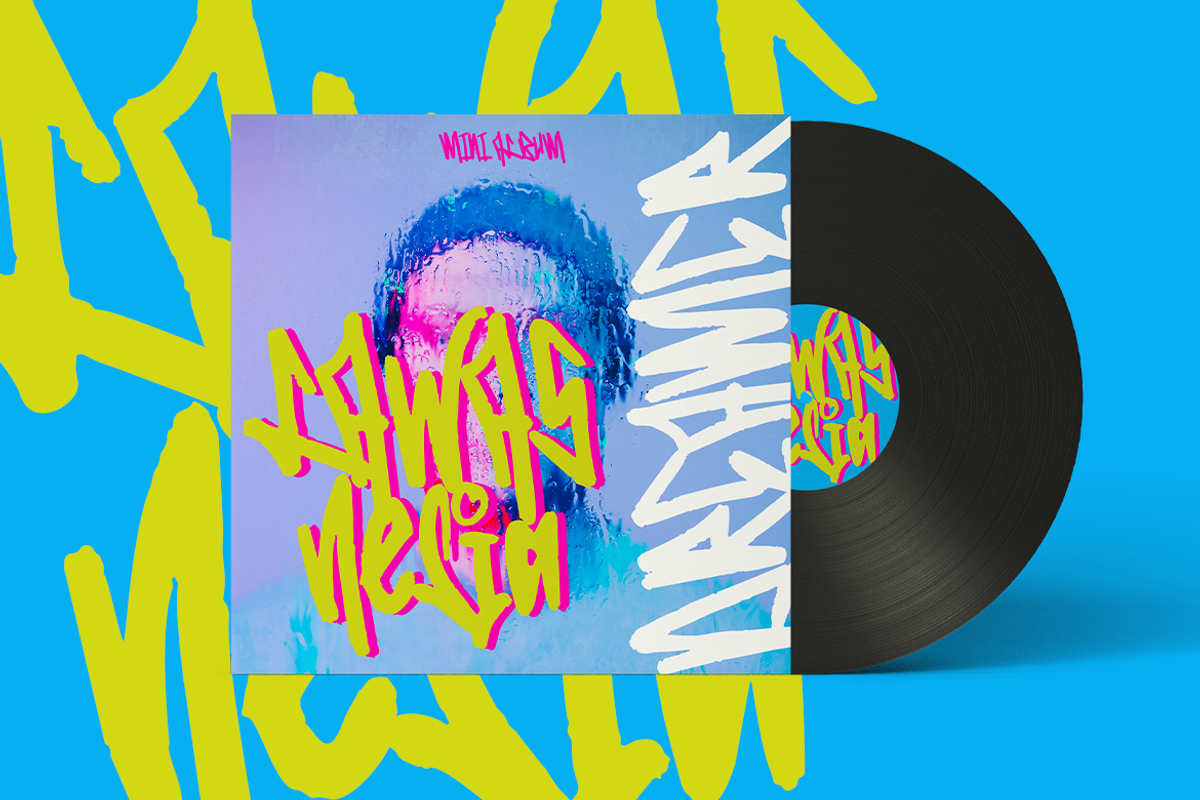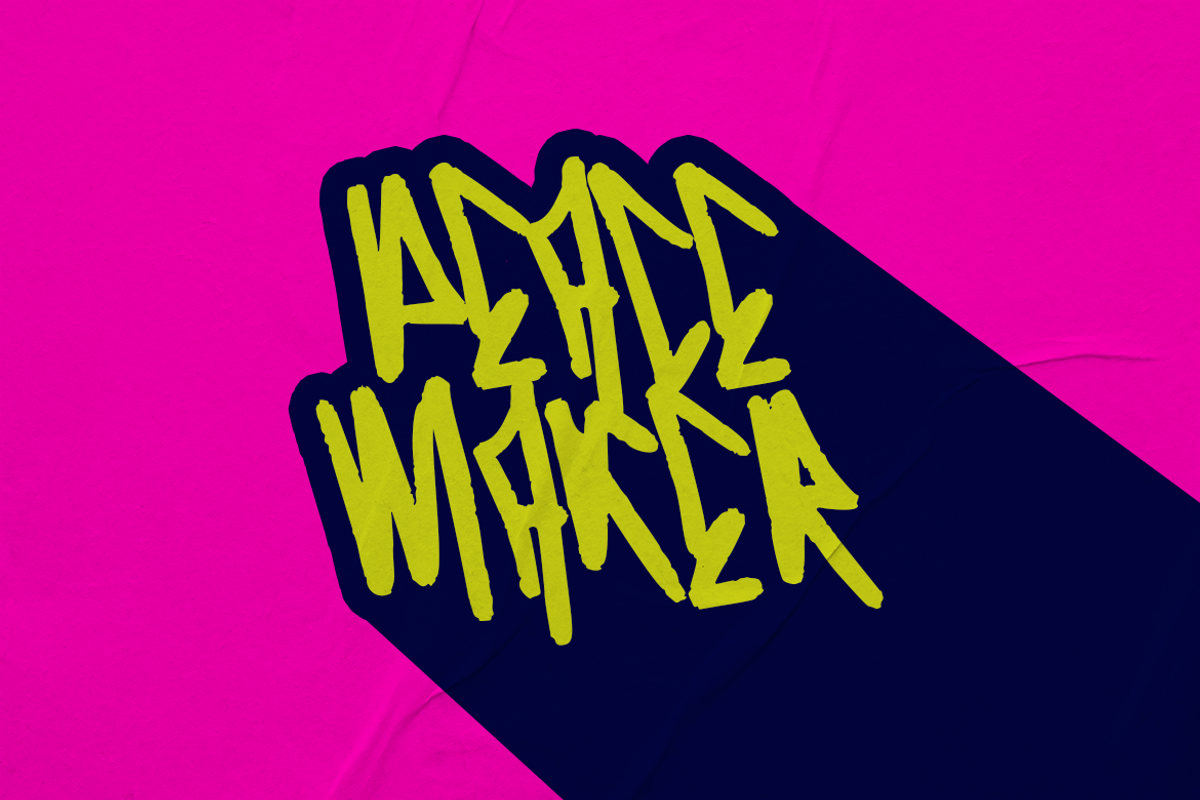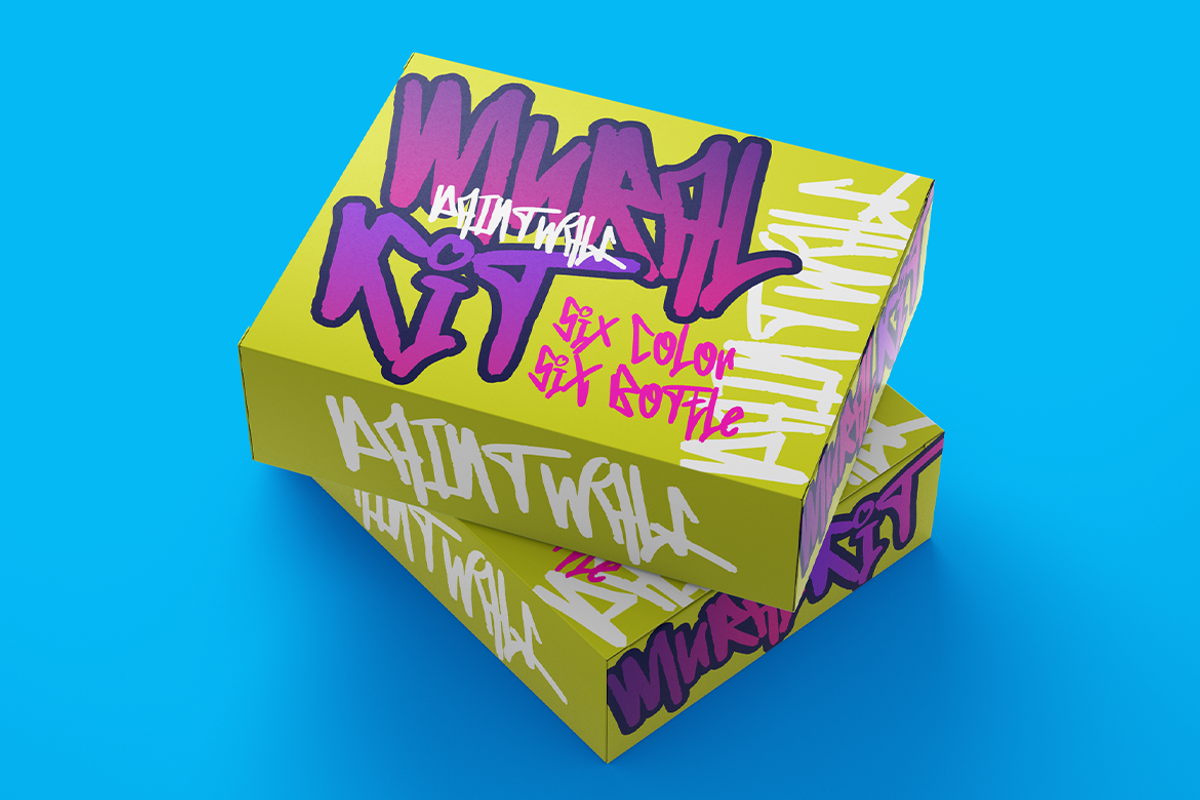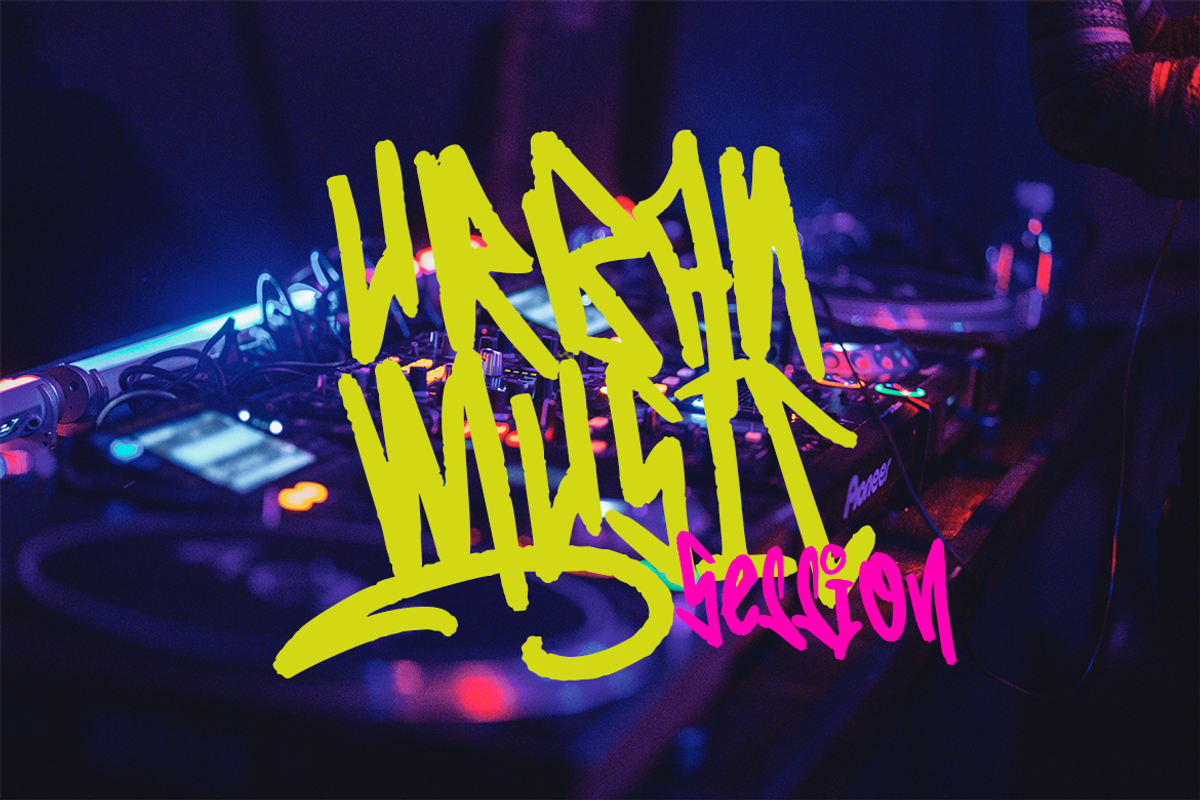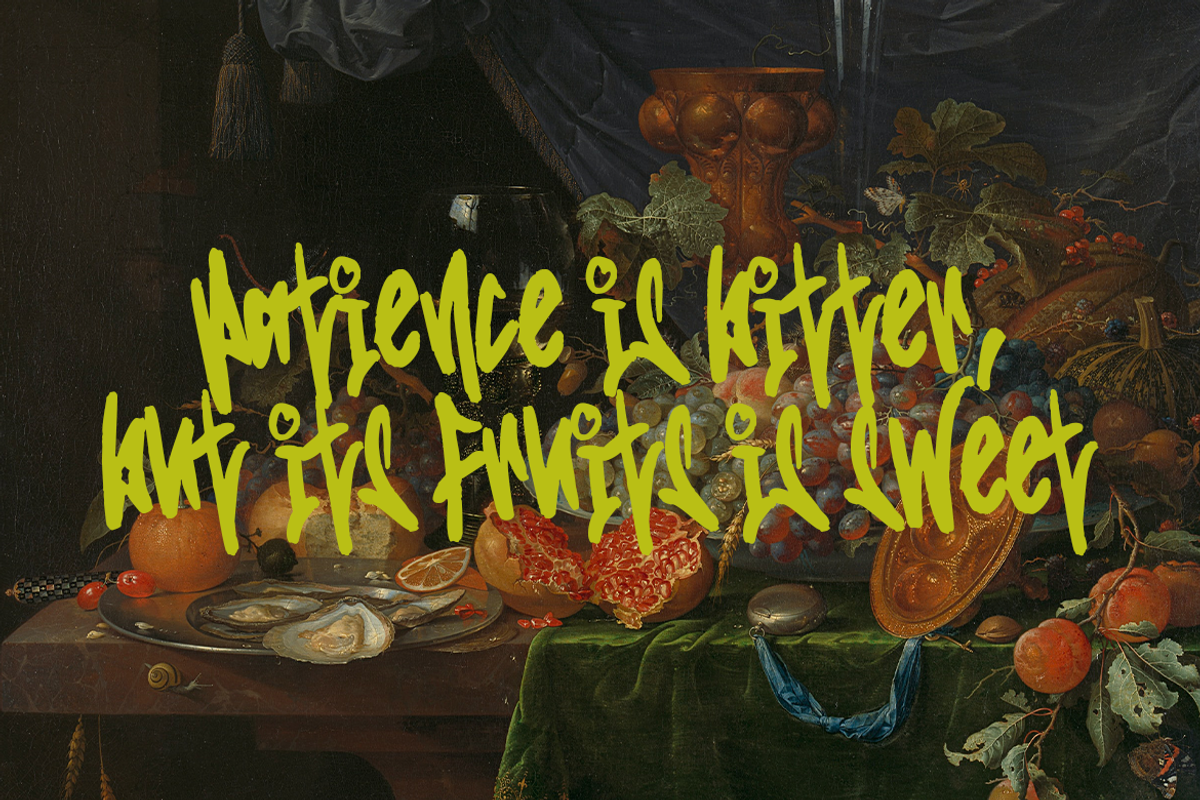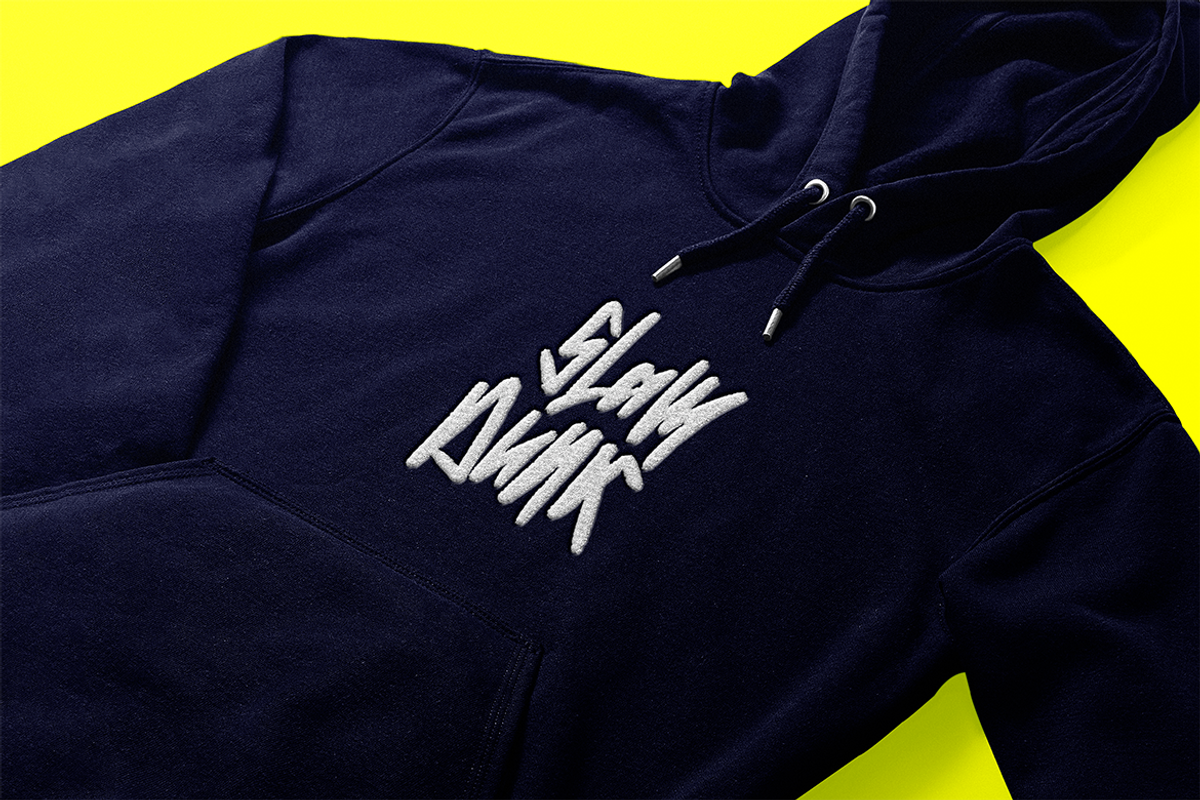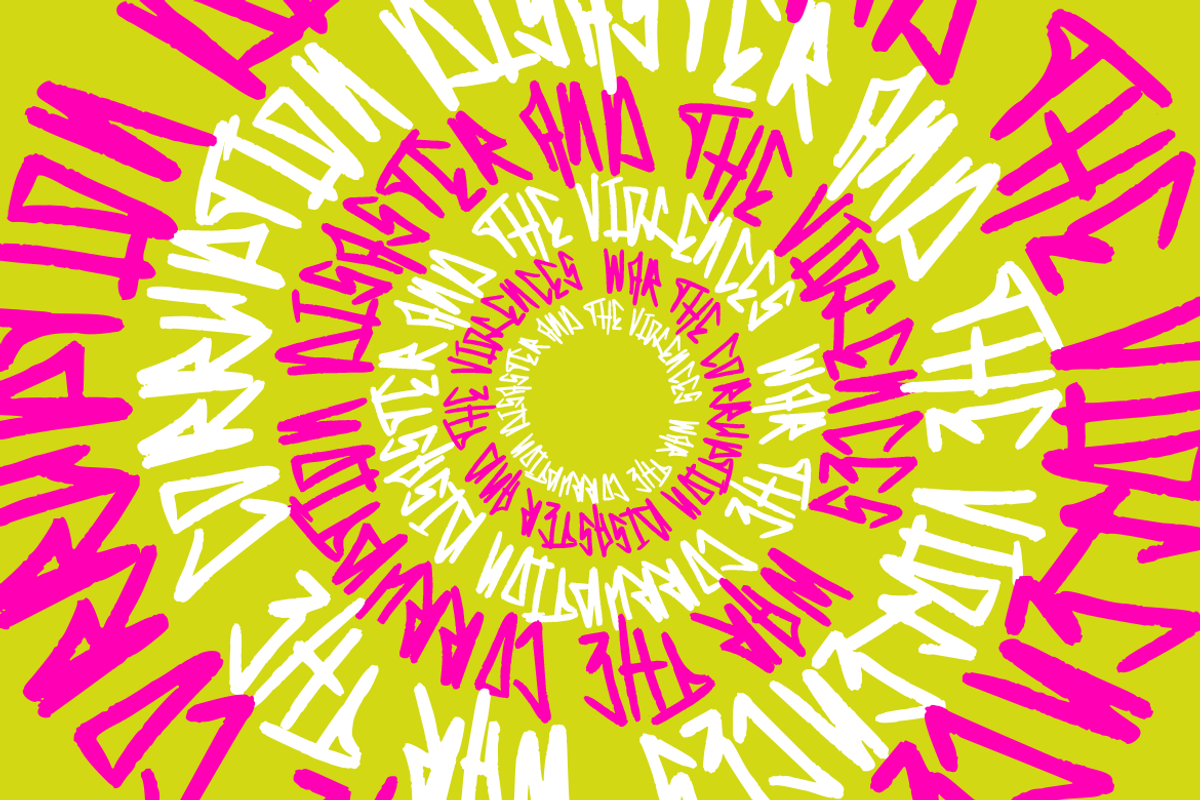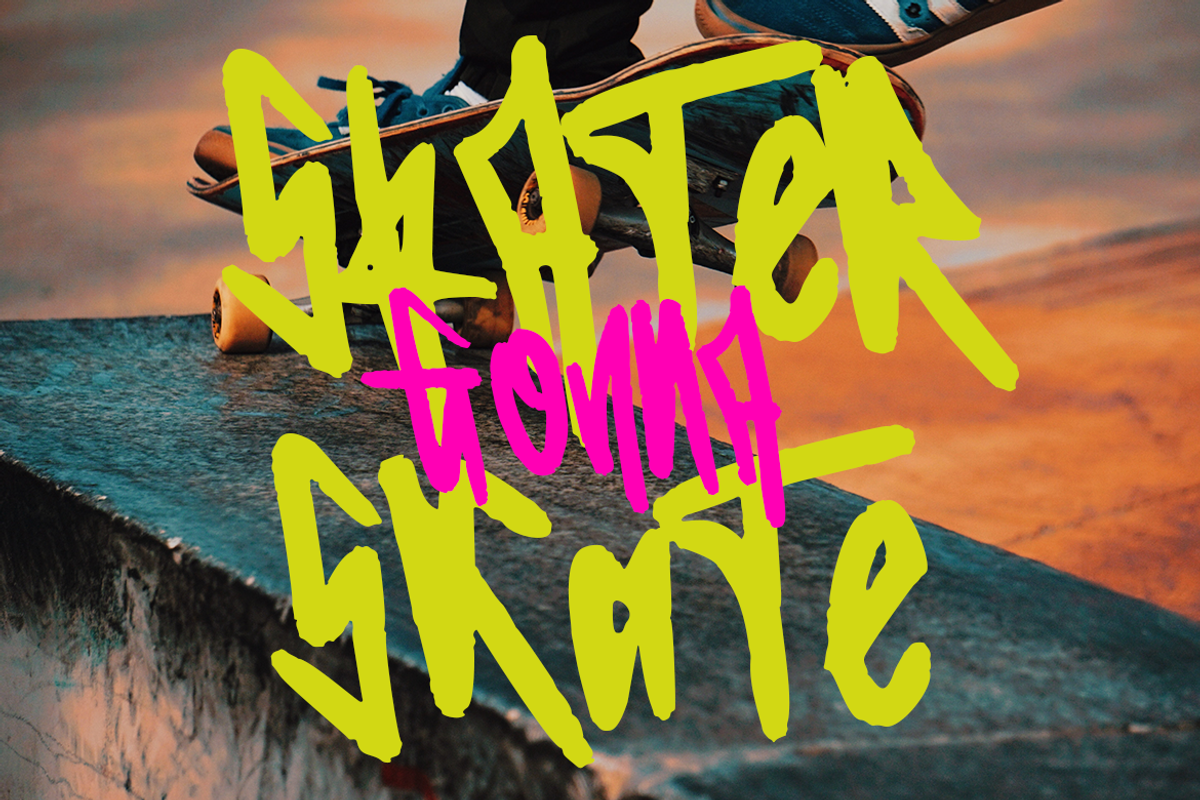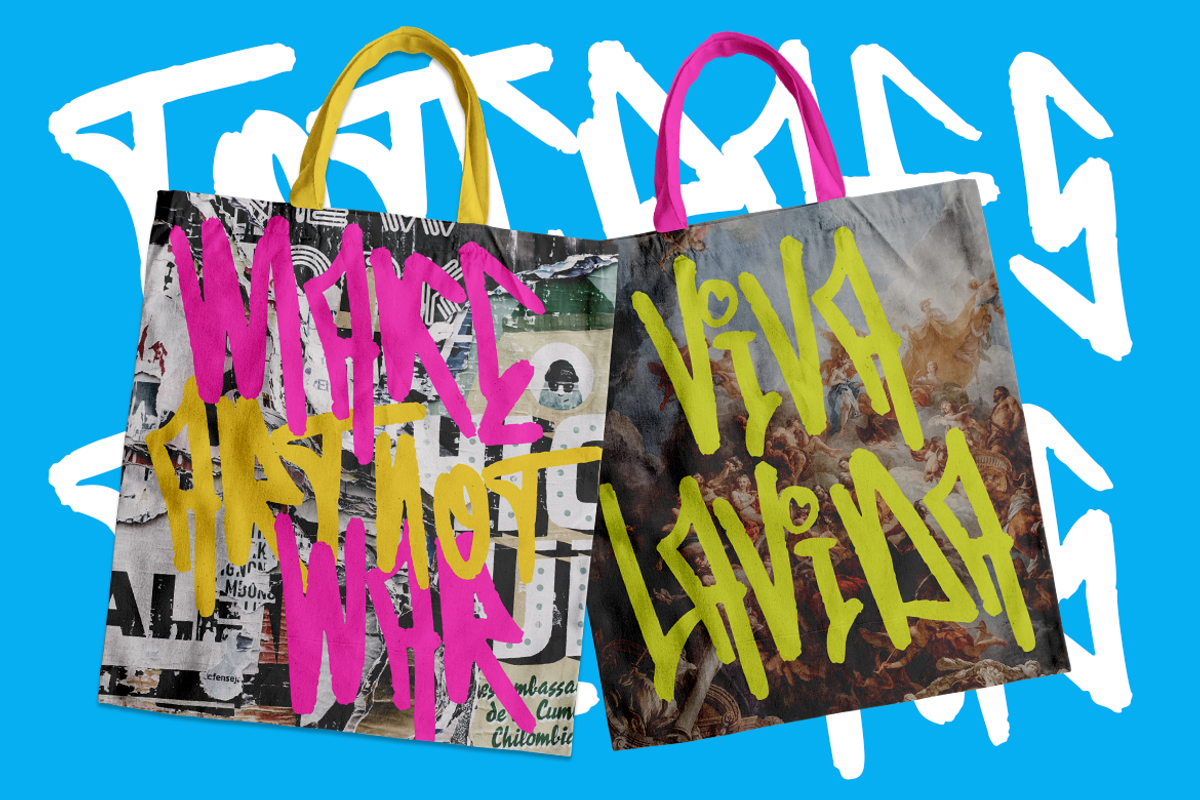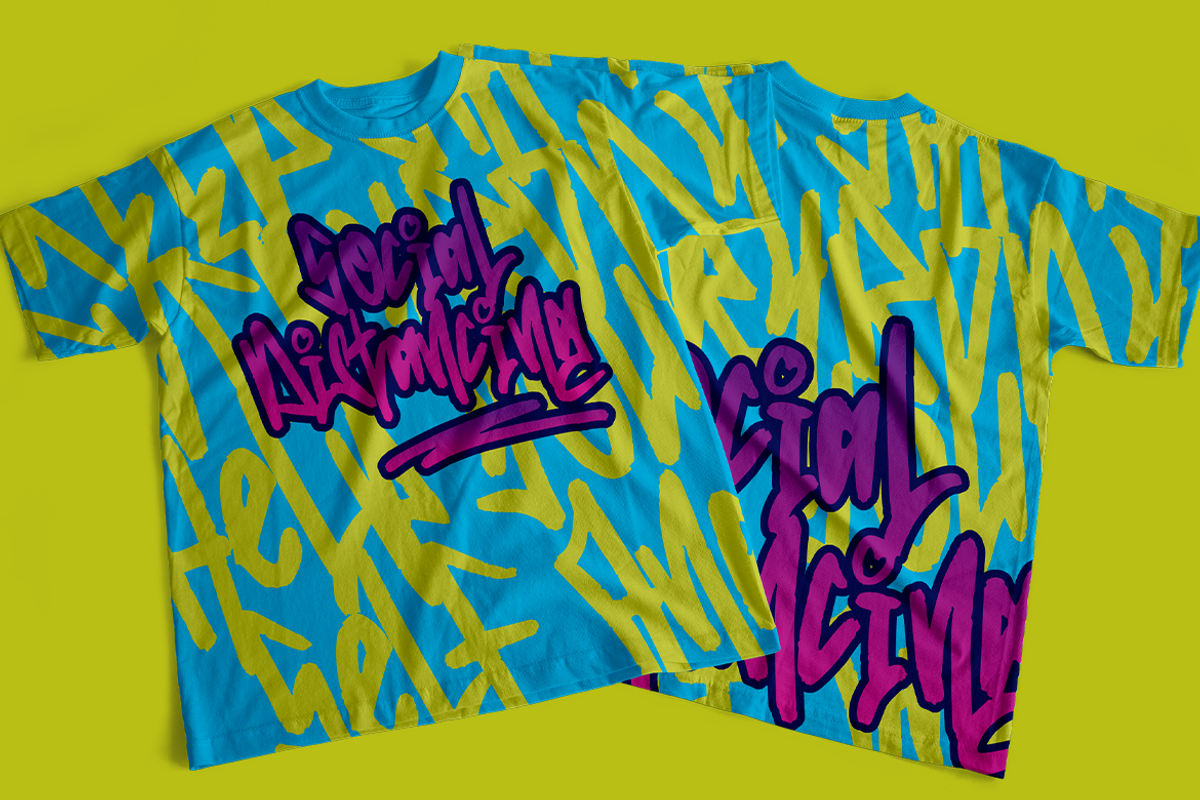
Edcosmic | An Urban Art Font
Edcosmic is an urban glyphic font that pours unique character into your creation.
The traditional way of having graffiti style is to draw every letter manually. For every styles that you want to create, you’ll have to draw each letter by hand. This will take you days and most likely months to finish your project. With technical development, it limits the use of graffiti style in real life because it is so time consuming.
Edcosmic is a graffiti font with an elaborate character set that makes creating the new styles easier than ever before. You don’t have to draw every single letter by hand anymore. What took months can now be done within hours if not minutes! You are still limited by your own creativity instead of time consumption.
Edcosmic is a font with a new graffiti character set that gives creative freedom to your world. The font has very detailed characters, this will make your design different from all the others. By having a special font you can create a new style and make the world your own!
- Swashes & Ligatures